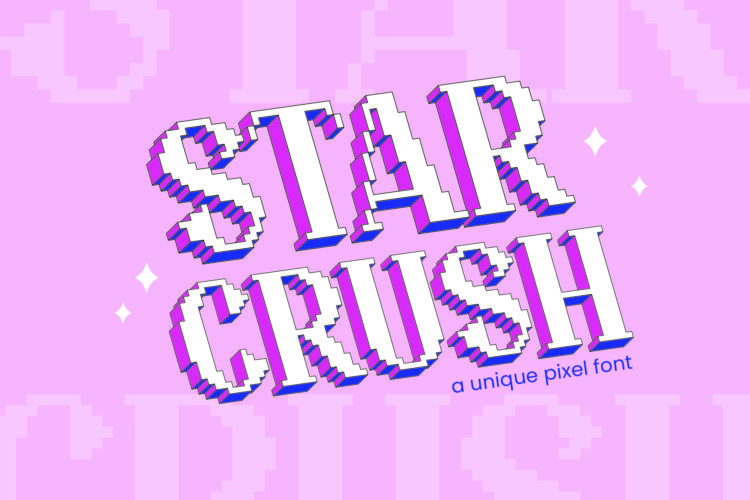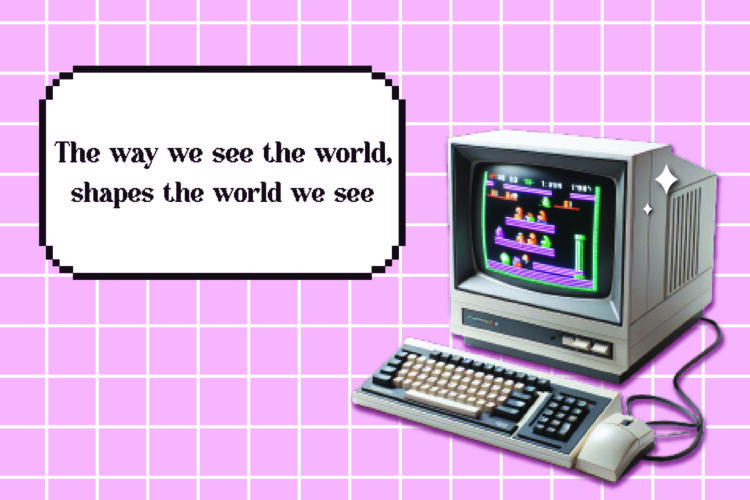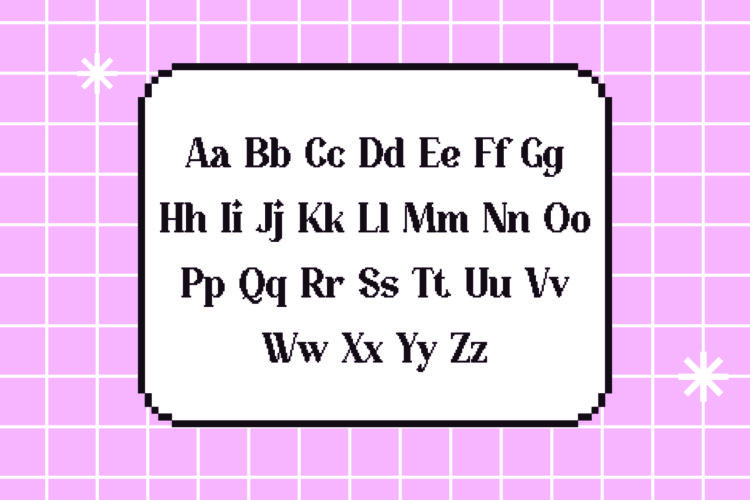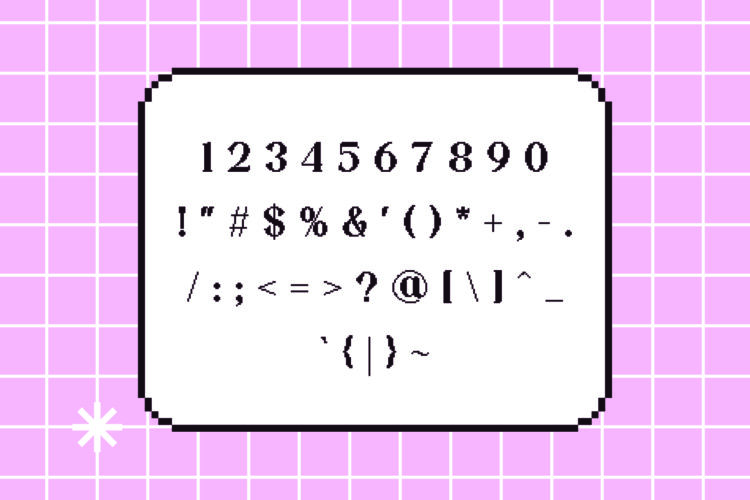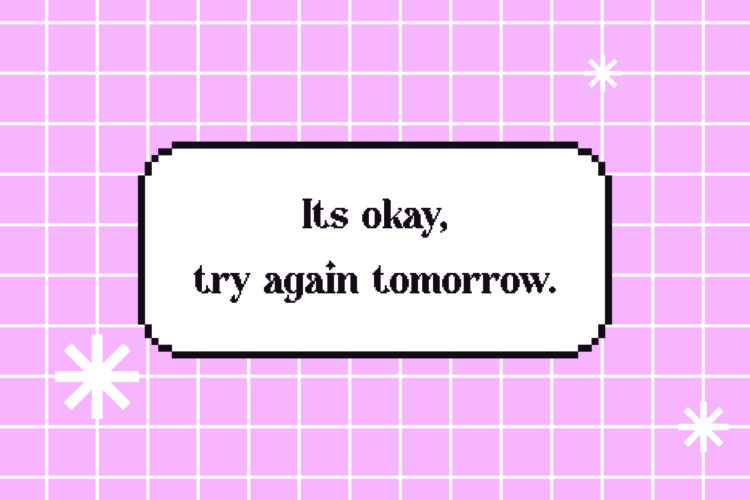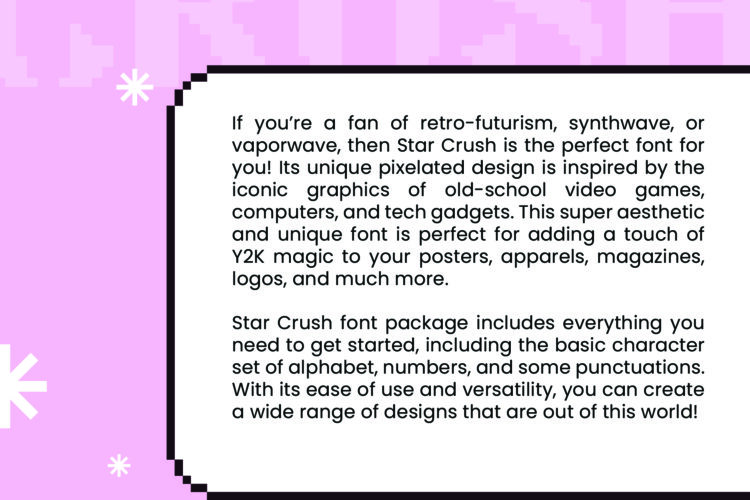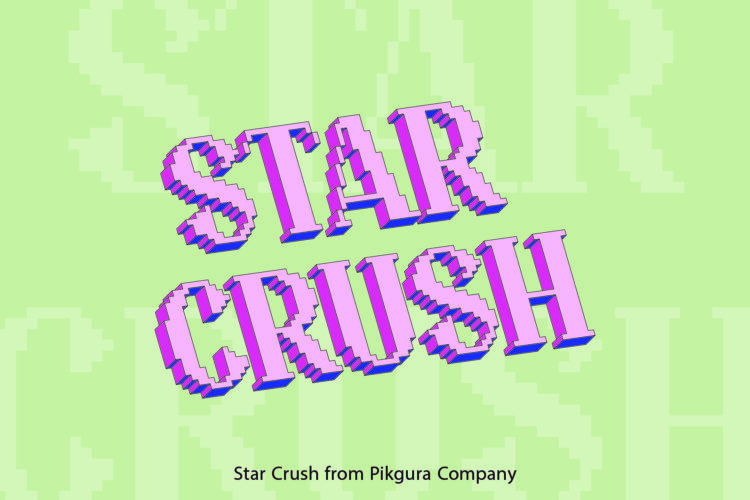
If you love retro-futurism, synthwave, or vaporwave, Star Crush is the font for you. Its pixelated design draws inspiration from classic video games and tech gadgets. This font adds a touch of Y2K magic to your designs.
Use Star Crush for posters, apparel, magazines, logos, and more. Its unique style makes every project stand out with a nostalgic flair.
The Star Crush package includes uppercase and lowercase letters, numbers, and basic punctuation. It’s available in TTF, OTF, and WOFF formats, ensuring compatibility across various platforms.